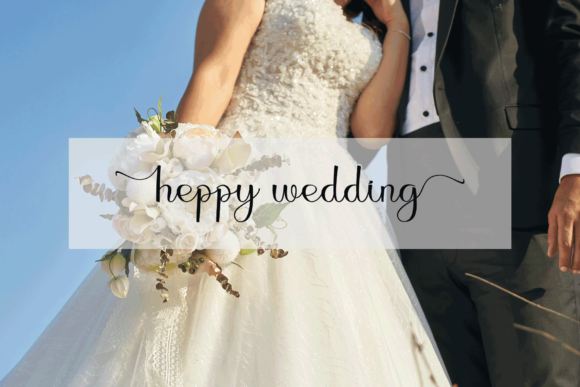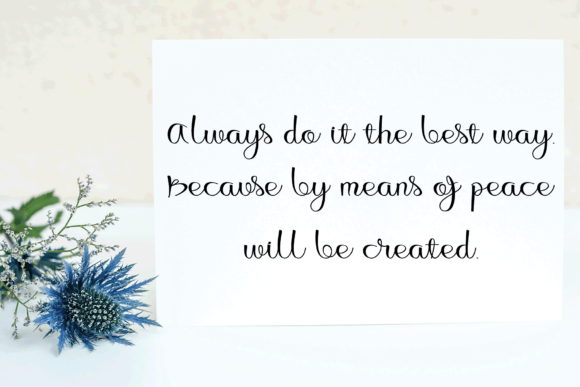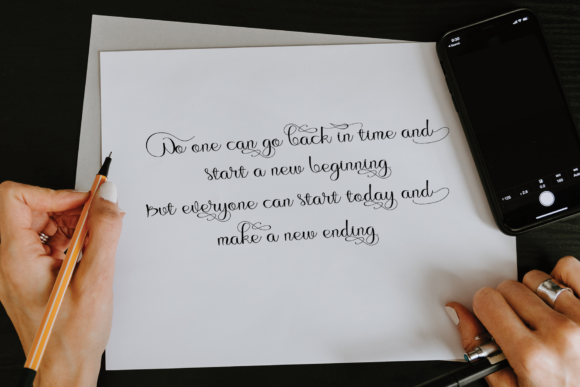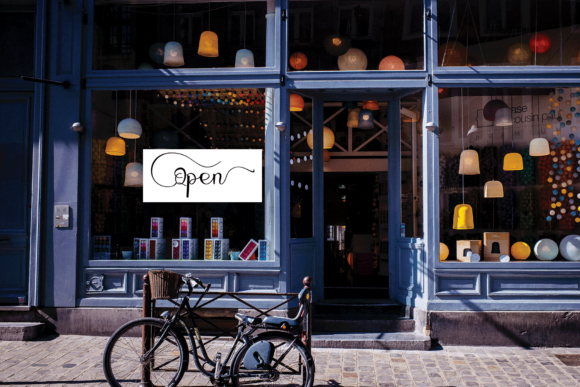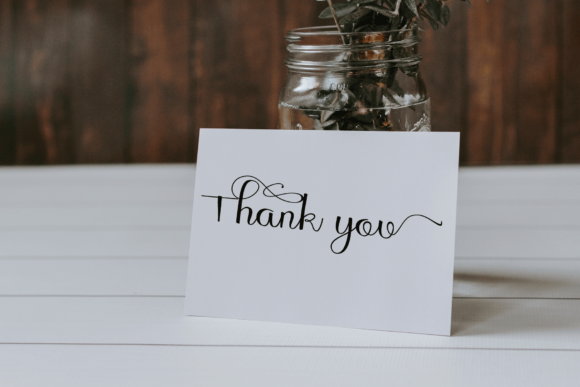
Introduction to Birdena Font
Have you ever stared at a blank page, waiting for inspiration to strike? That’s where the magic happens, and creativity flows. For designers, it’s all about finding the right tools to bring their ideas to life. And that’s where Birdena Font comes in – a gorgeous and modern calligraphy typeface that’s sure to inspire your next creative project.
With its dancing bases, cute ligatures, and amazing swashes, Birdena Font is a design resource like no other. Whether you’re working on a freelance project or a personal passion, this high-quality font is sure to elevate your designs and leave a lasting impression. And the best part? It’s available for free download, so you can get started right away – even if you’re working on a tight budget or just want to experiment with different design styles.
Key Features of Birdena Font
- Features a unique, stylish design that can be used for a variety of purposes, from logos to typography-based artwork.
- Includes a range of glyphs and characters, making it a versatile design resource for creative projects.
- Supports a wide range of languages, including Latin, making it a valuable asset for international design projects.
Honest Review: Birdena Font
One of the standout features of the Birdena Font is its high quality and versatility. It’s available in a range of styles and weights, making it perfect for a variety of design applications.
What works well: ✨ The font has a transparent background, which makes it easy to use in both digital and print projects. The design is modern and sleek, and it’s easy to see why it’s a popular choice among designers.
Some limitations: ⚠️ While the font is high quality, it may not be suitable for very small font sizes. Additionally, the font doesn’t include a wide range of international characters, which may be a limitation for designers working on projects that require multiple languages.
- High quality and versatile
- Modern and sleek design
- Not suitable for very small font sizes
- Limited international characters
Tips for Getting the Most Out of Birdena Font
To get the most out of Birdena Font, use it in conjunction with other design elements to create a visually appealing and cohesive look. Experiment with different font sizes, colors, and styles to find the perfect combination.
Birdena Font is perfect for a variety of projects, including logos, business cards, and marketing materials. Its high-quality glyphs and transparent background make it ideal for creating eye-catching designs that stand out from the crowd.
Does the Birdena Font have a transparent background?
No, the Birdena Font does not have a transparent background. It is a solid font that can be used on any background, but it may not be suitable for use on transparent backgrounds or images with a transparent overlay.